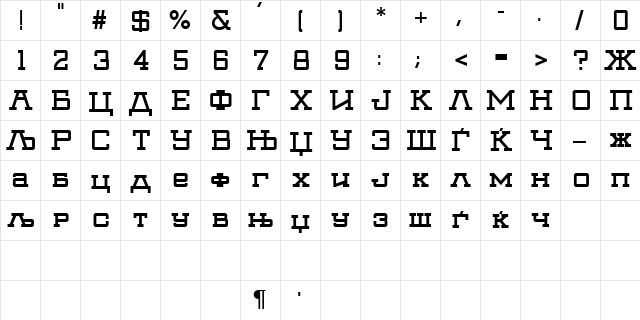
X_Goliath Bold
Design Context for X_Goliath Typeface
X_Goliath is a composed and adaptable typeface that performs quietly and consistently across a wide range of design contexts. Its bold stroke weight gives it real presence on the page.